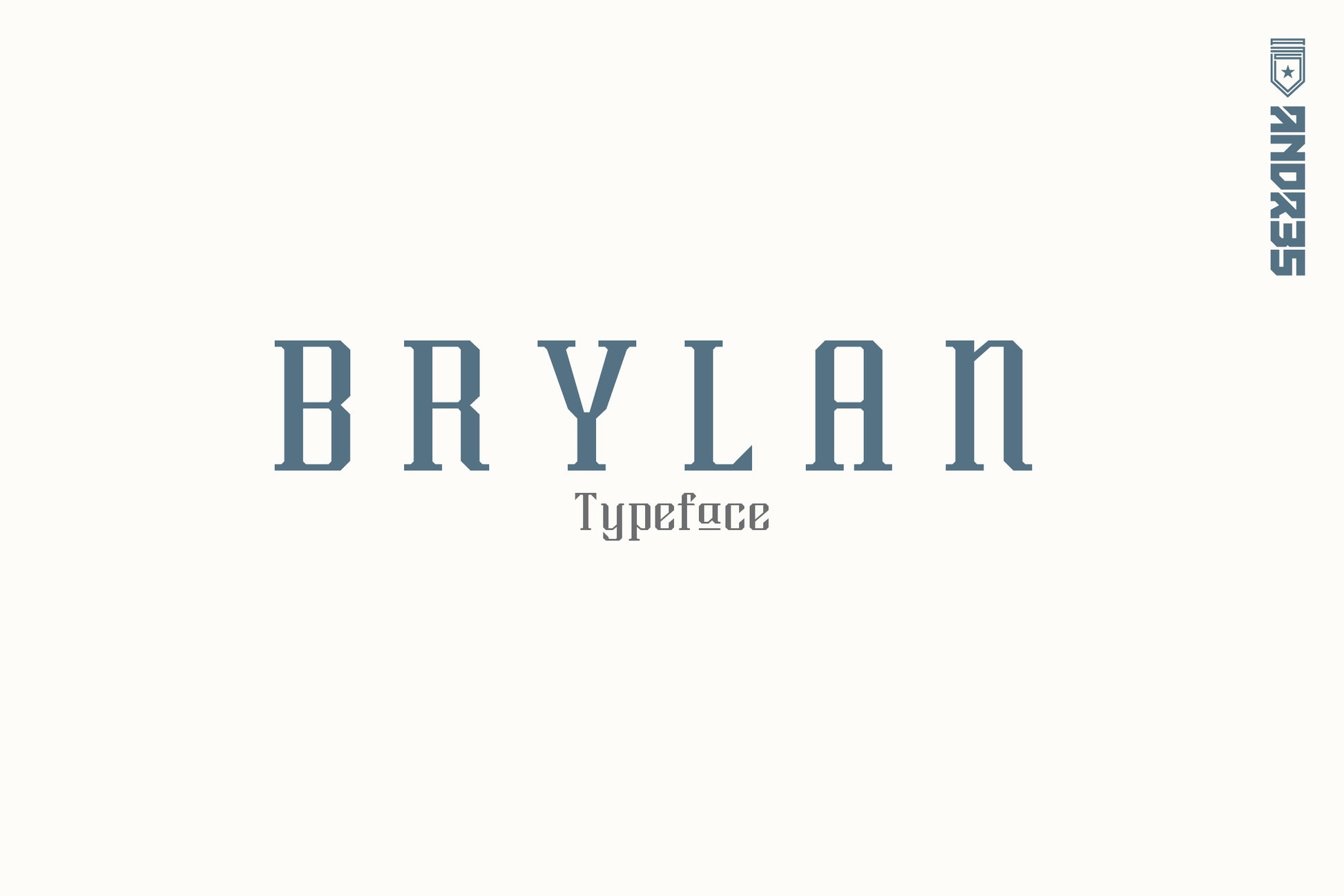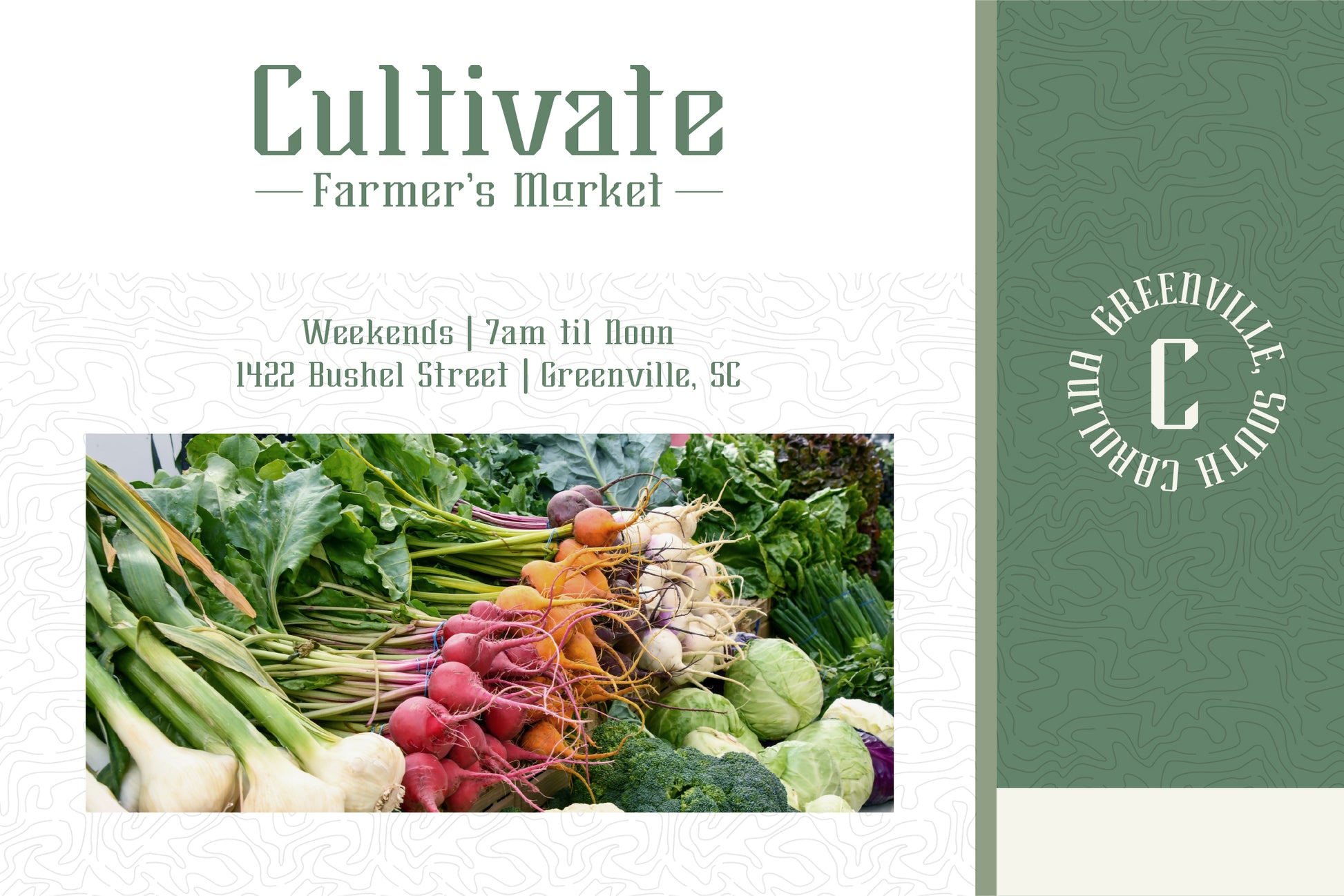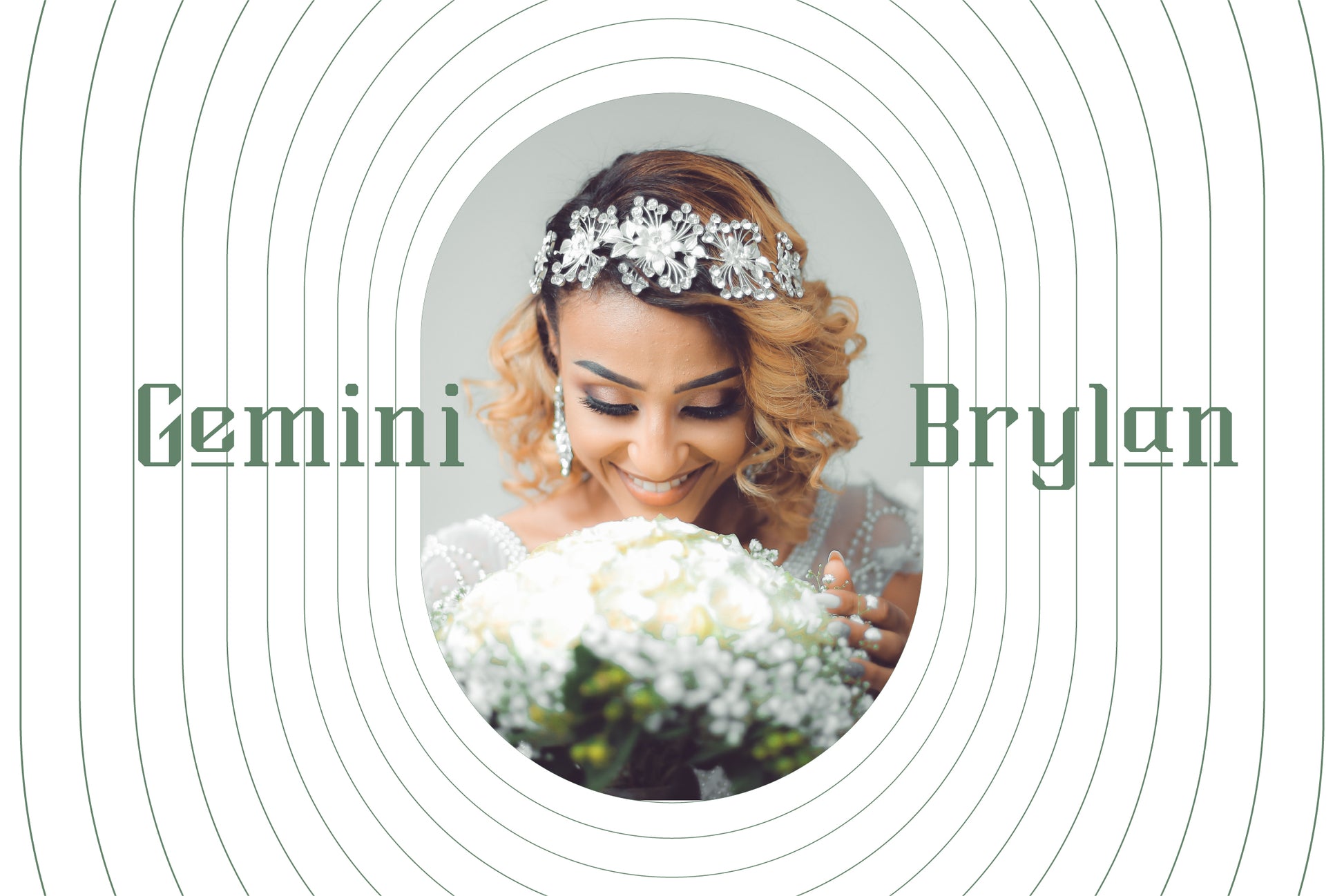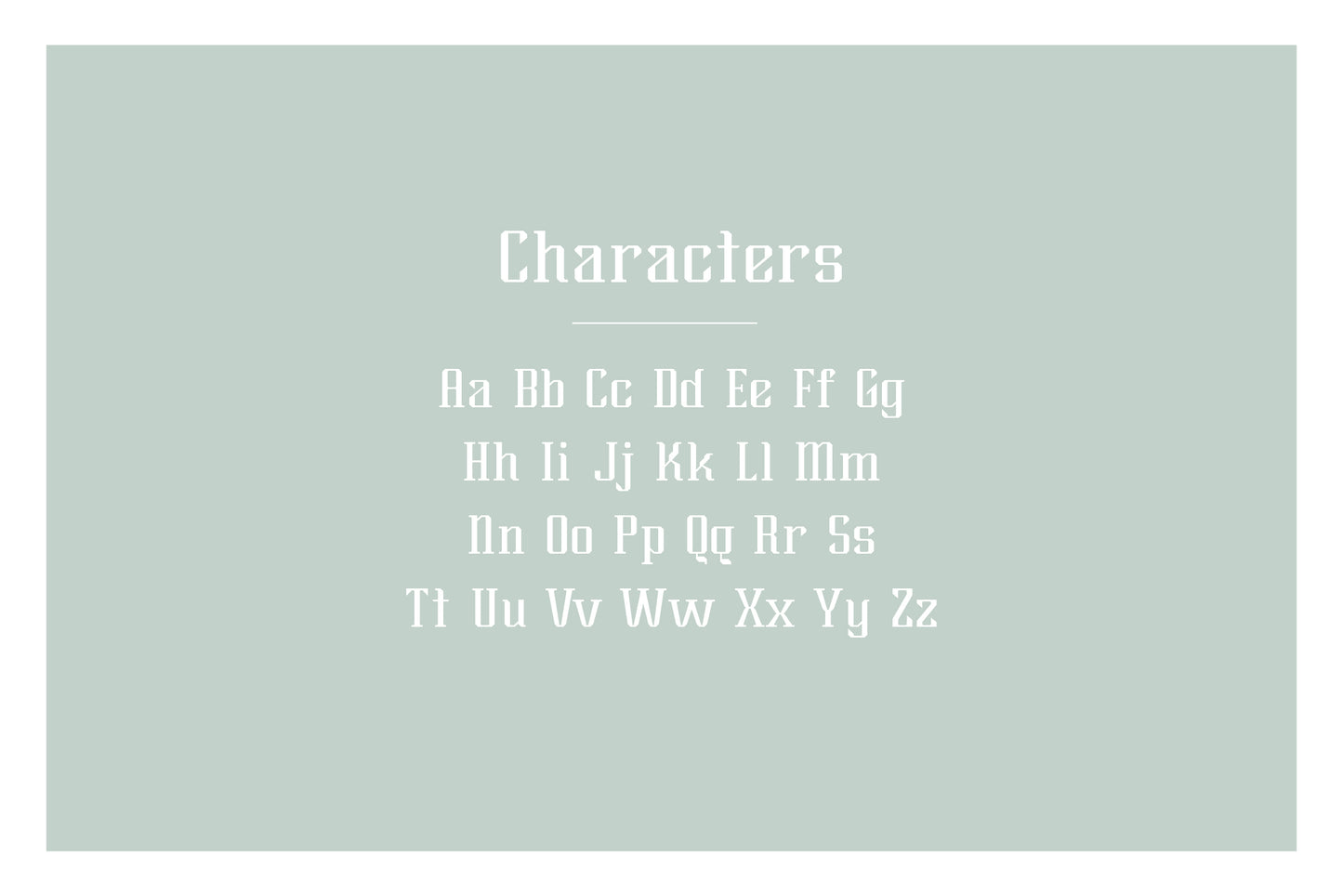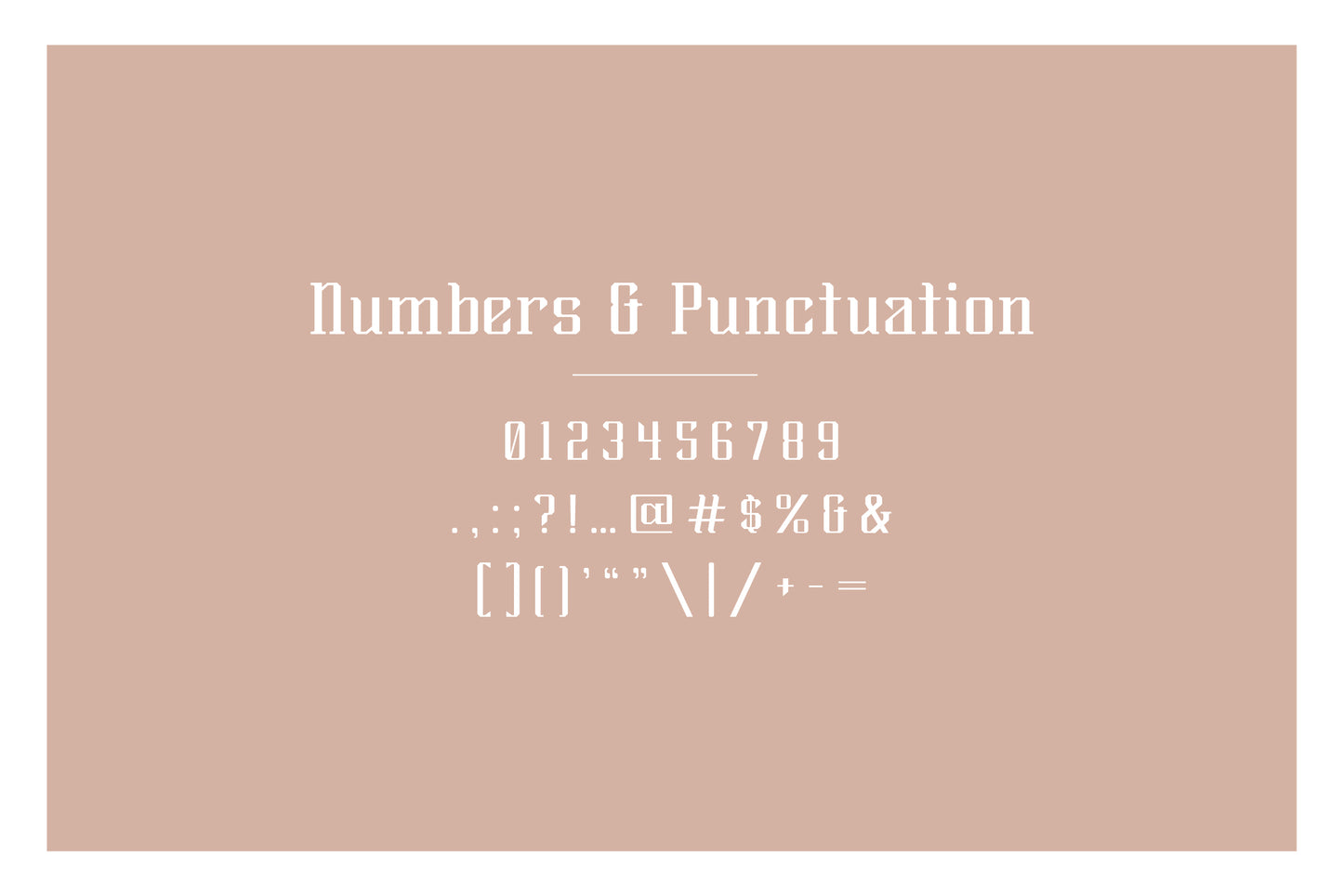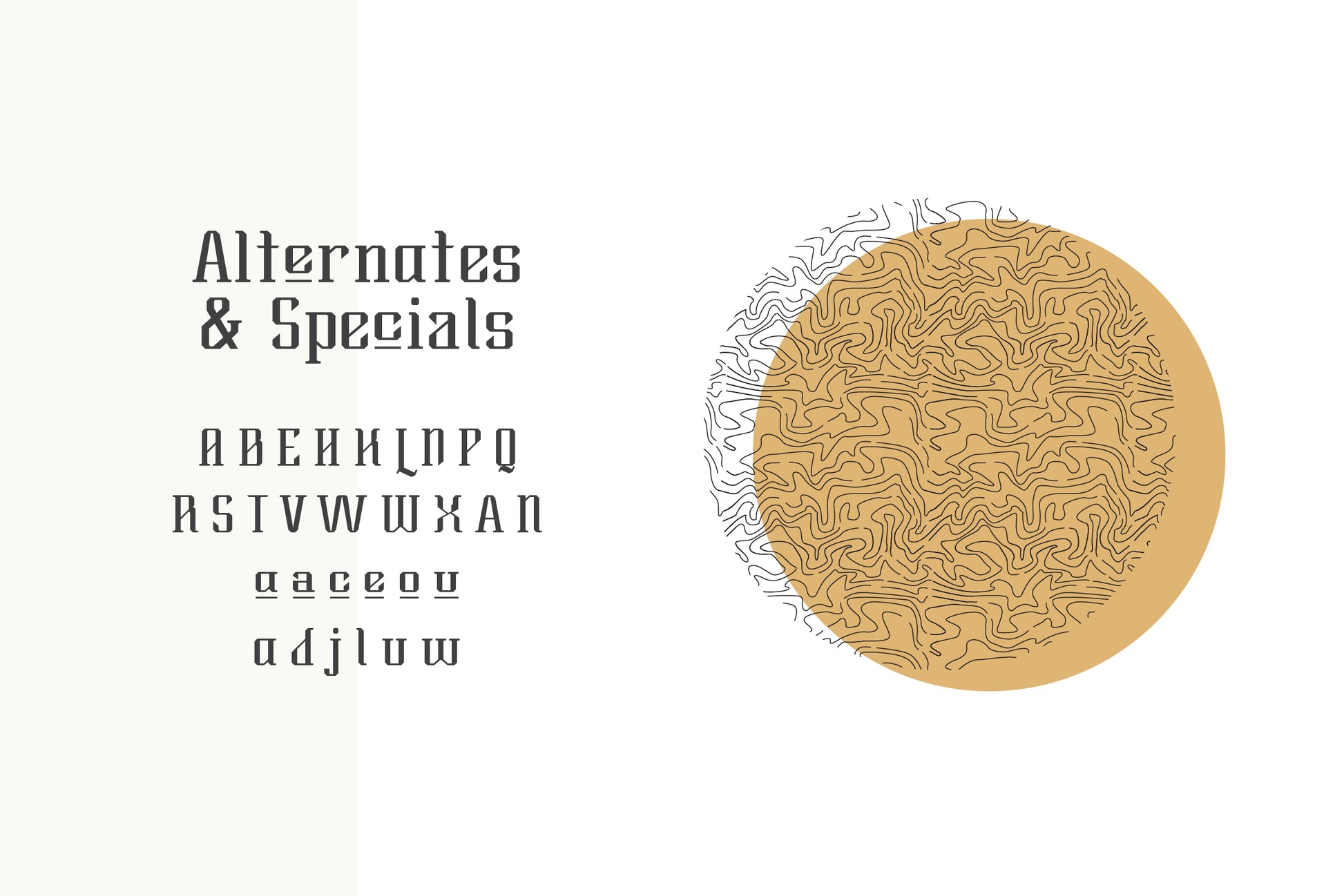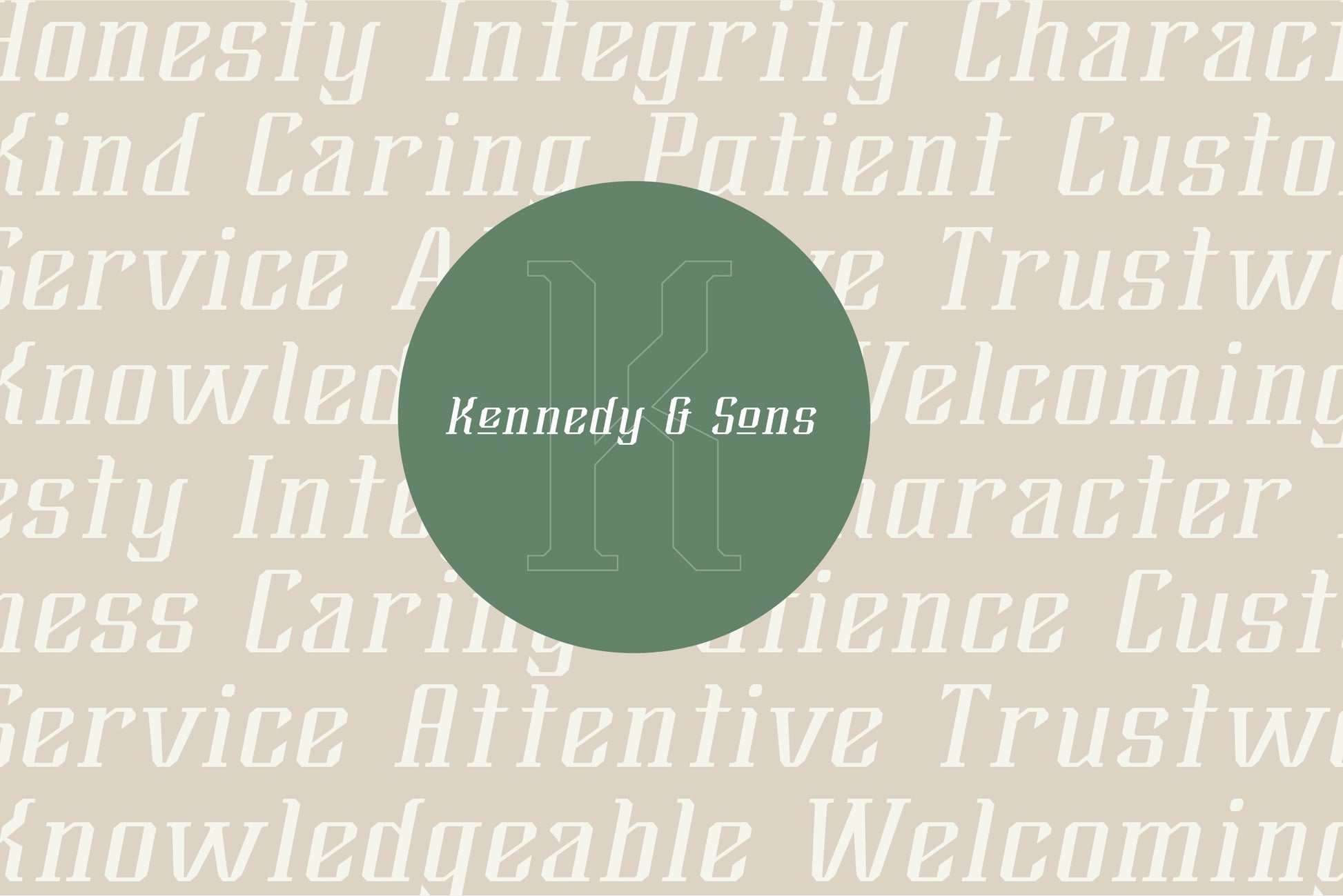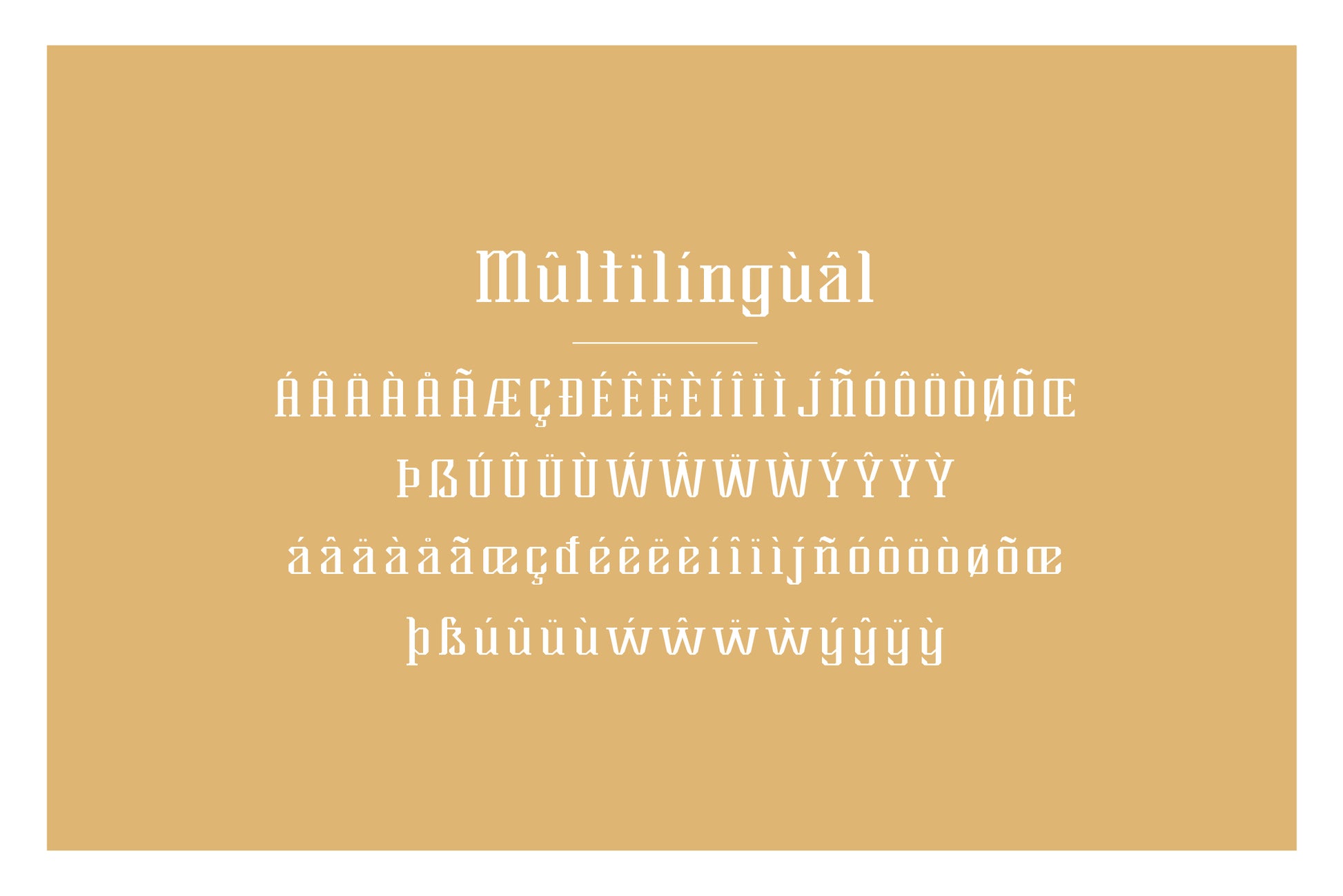
Brylan Typeface
Brylan is a strong edgy serif that is reminiscent of vintage western typefaces. It's open, tall and condensed letterforms look great with wide set kerning. Use it large and in your projects for editorial, magazine, product packaging, branding, interior design, legal, real estate, fashion, jewelry, furniture, photography, etc.
Inspiration for **Brylan** came from vintage varsity style fonts and condensed headline typefaces.
**Features**
- Uppercase, lowercase, numbers, punctuation
- Opentype Features: Alternate glyphs and special lowercase characters
- Faux Italic
- Multilingual support